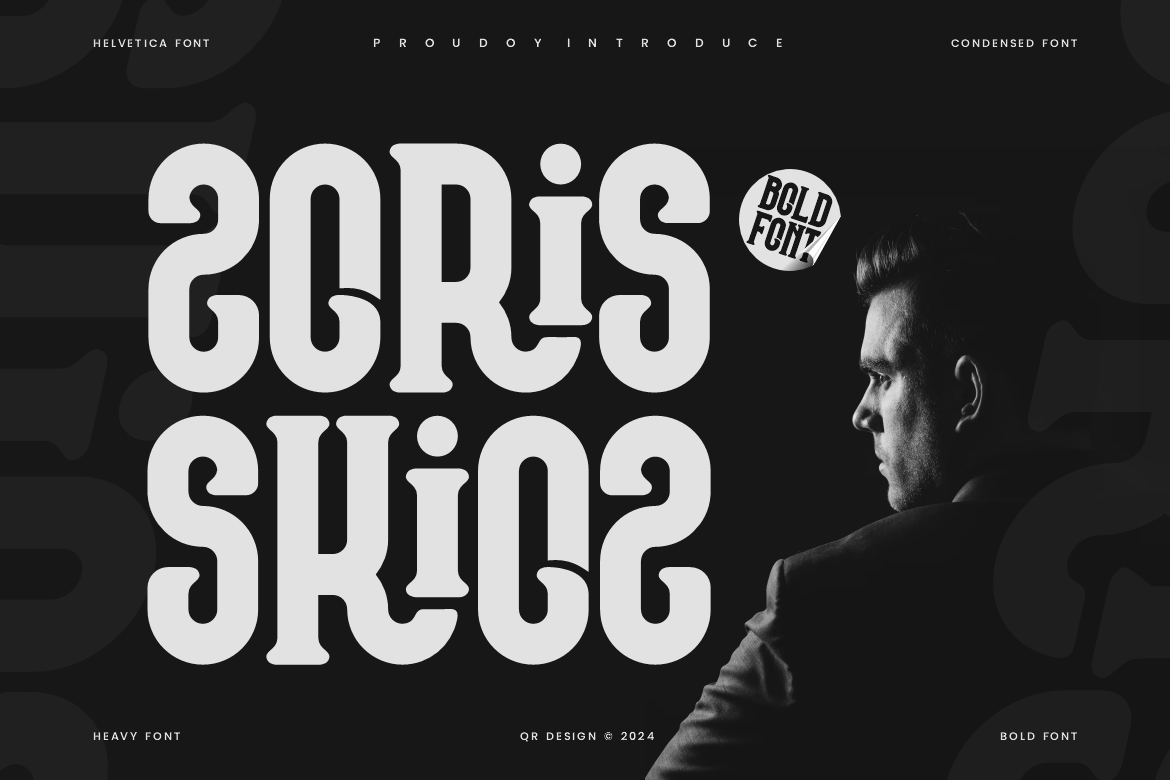
Zoris Skioz - Condensed Soft Font
Zoris Skioz Font is a bold and authentic display font. The font is suitable for any branding project like poster, logo, sport, and many more. Outstanding in a wide range of contexts.